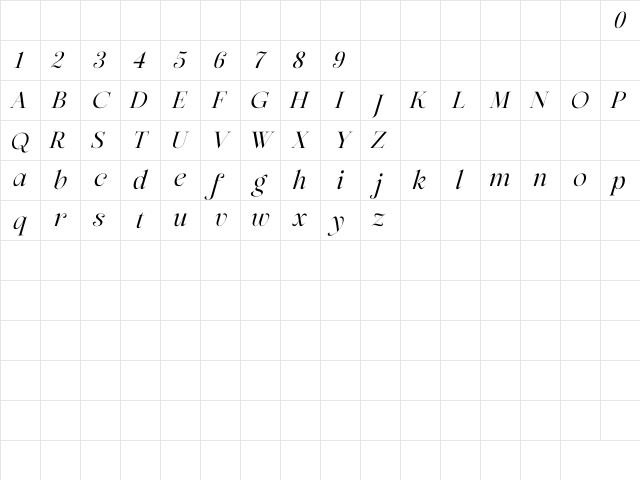
Zofiere is a composed and adaptable typeface that performs quietly and consistently across a wide range of design contexts. The slanted form adds forward momentum and visual energy.
Pro Tip: Use Zofiere for emphasis, pull quotes, and subheadings where its slanted energy can add rhythm to the layout.